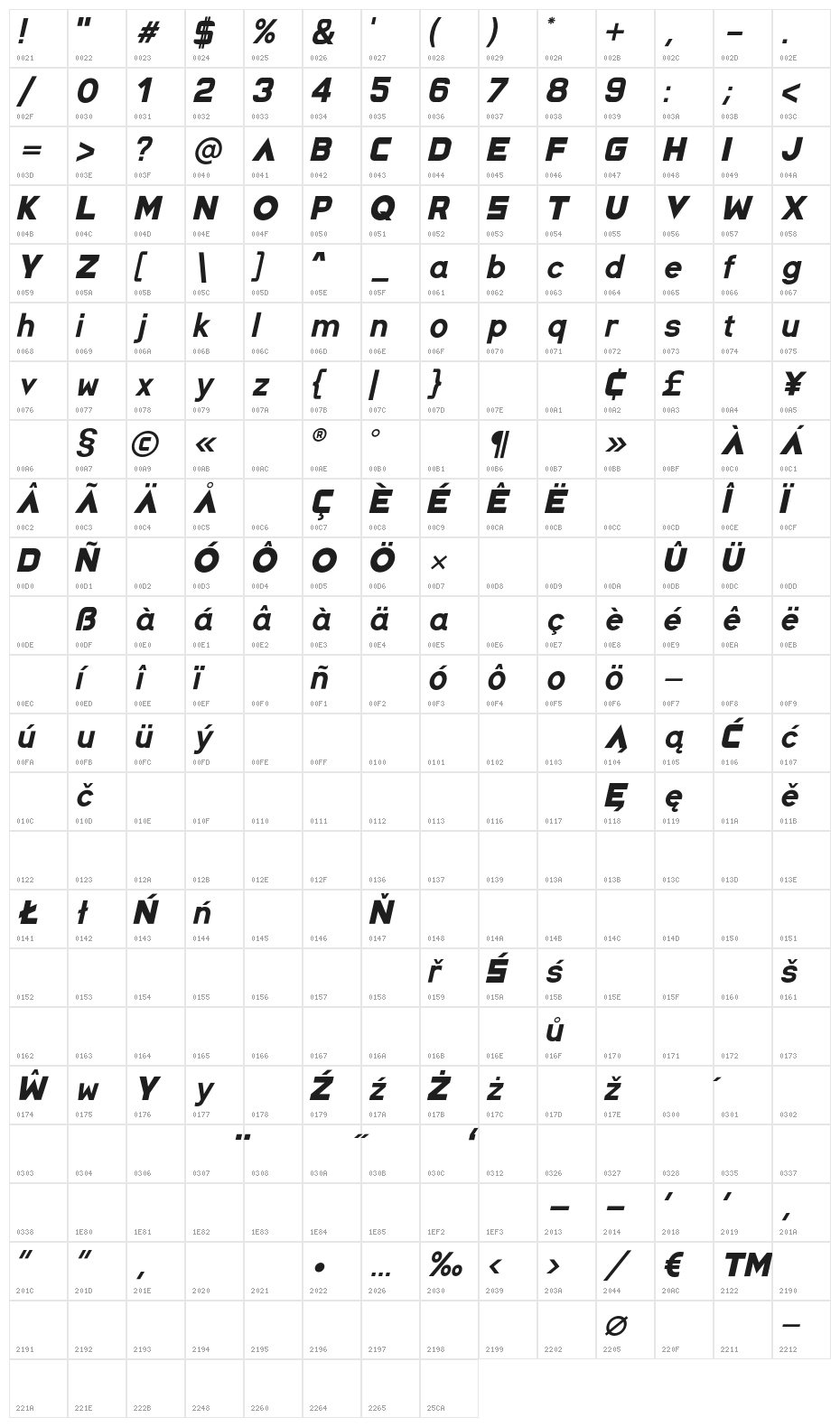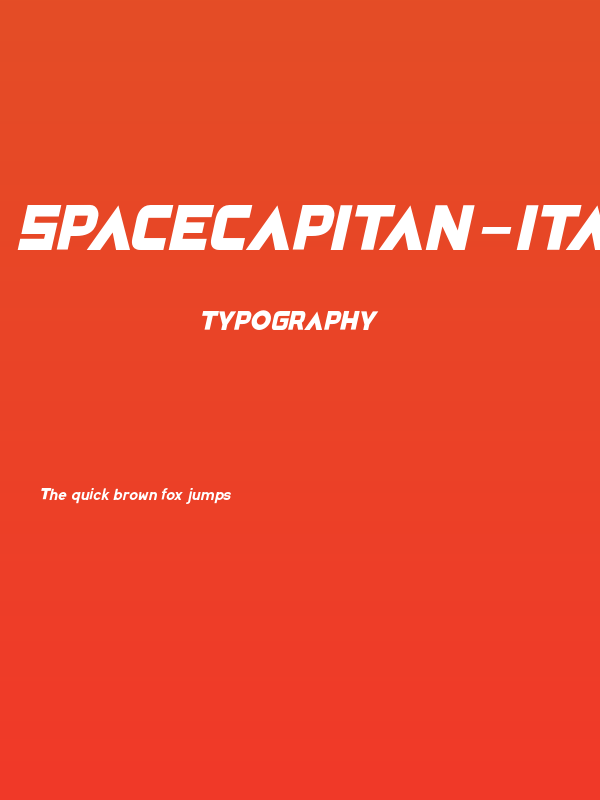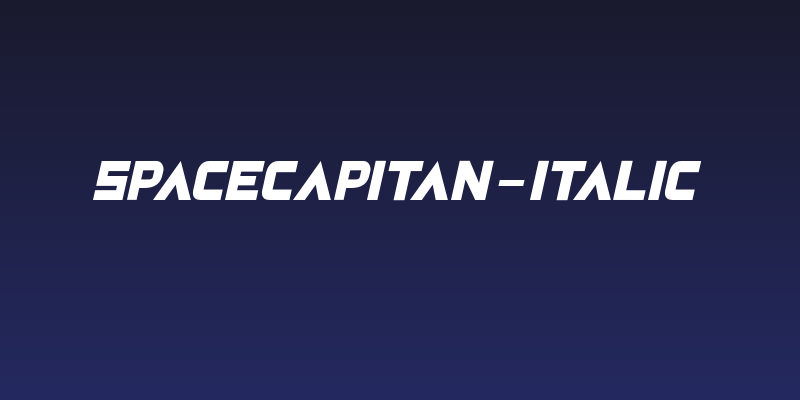
SpaceCapitan-Italic Font
SpaceCapitan-Italic Description
This font exhibits a modern and sleek design with a strong italic slant, giving it a dynamic and forward-moving appearance. The characters are bold and slightly condensed, with a uniform stroke width that maintains a clean and professional look. The uppercase letters are angular and geometric, while the lowercase letters are more rounded, providing a nice contrast. The numbers are consistent with the overall style, ensuring readability. Special characters are well-integrated, maintaining the font's cohesive aesthetic. This font's design is suitable for projects that require a contemporary and energetic feel.
| Proposed Projects | Ideal for branding, advertising, sports team logos, and futuristic design projects. |